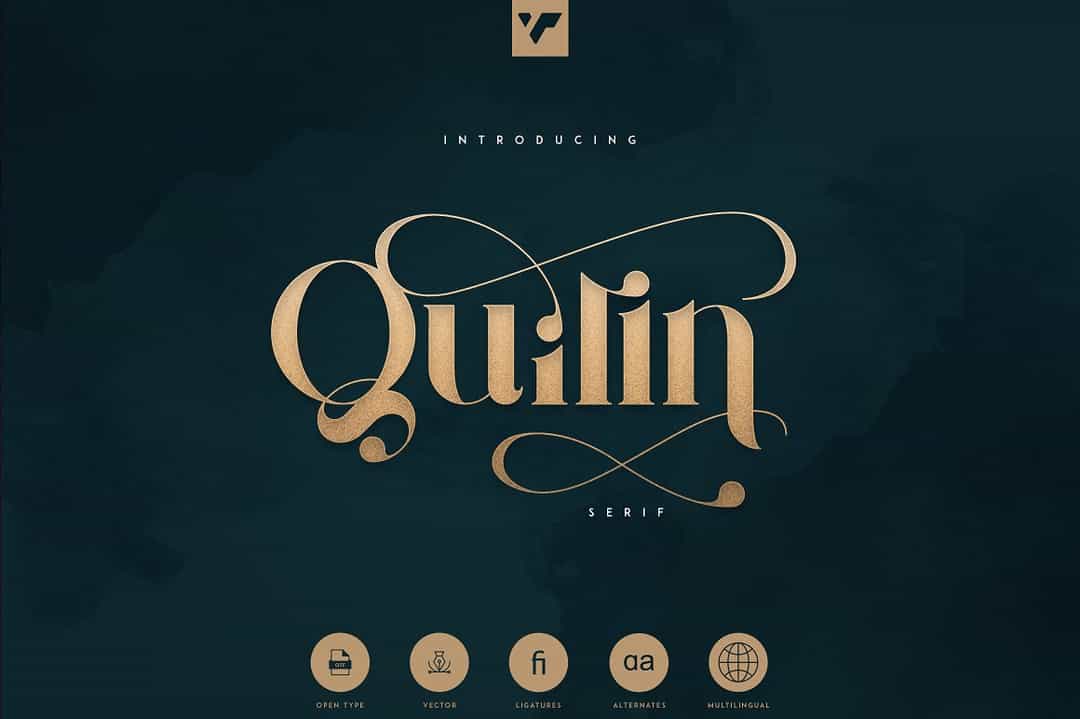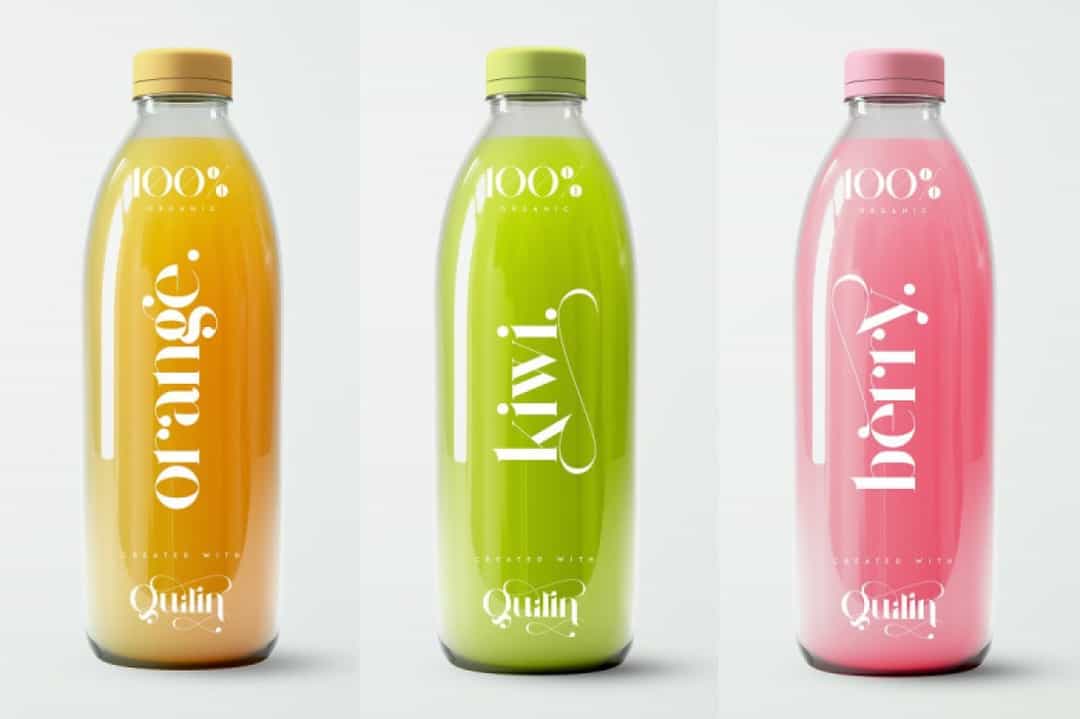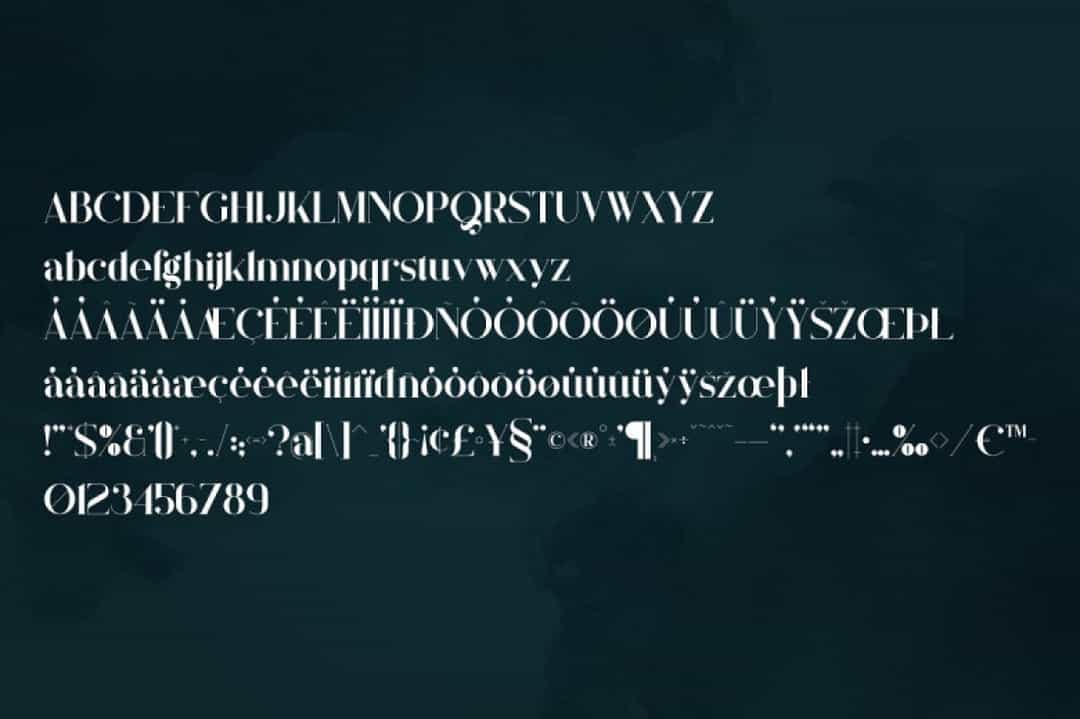
Quilin Font is a vintage luxury typeface featuring alternative symbols and multilingual support, making it an excellent font choice for small to large sizes. Quilin Font is ideal for homeware designs, branding packaging for products, magazine headers and simply text overlay on any image background.